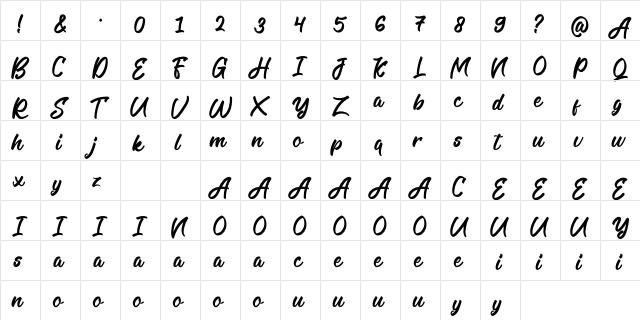
LegilatureFree Regular
| Foundry | alphArt |
| Designer | Agung Rohmat |
Design Context for LegilatureFree Typeface
LegilatureFree is a composed and adaptable typeface that performs quietly and consistently across a wide range of design contexts.